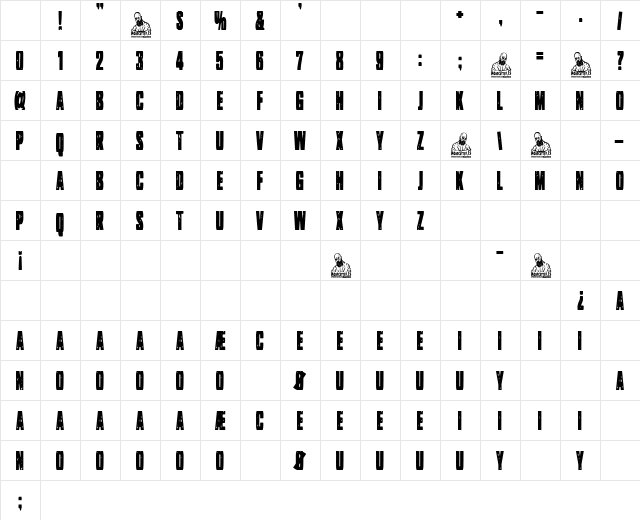
Complete Zarzaparrilla Regular glyph index. Displaying only characters natively supported by Zarzaparrilla Regular font.
Zarzaparrilla is a composed and adaptable typeface that performs quietly and consistently across a wide range of design contexts.